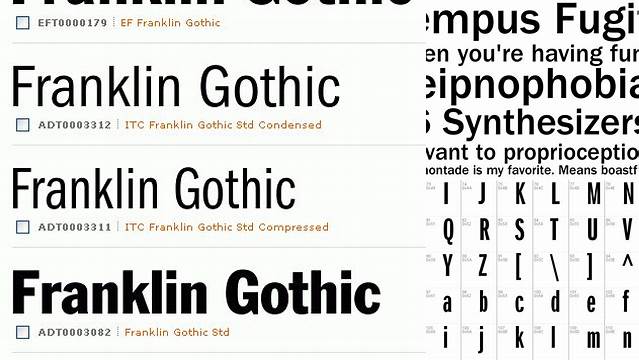
ITC Franklin Gothic STD is a timeless and versatile font family that has been a staple in the design world for decades. Known for its clean lines, excellent readability, and geometric structure, this font is a fantastic choice for a wide range of applications, from branding and advertising to editorial design and web content. In this article, weâll dive deep into the history, characteristics, and uses of ITC Franklin Gothic STD, and also guide you on how to obtain it.
History of ITC Franklin Gothic
The story of Franklin Gothic begins in the early 20th century with the prolific American type designer, Morris Fuller Benton. In 1902, Benton created Franklin Gothic for the American Type Founders (ATF). The font was named in honor of Benjamin Franklin, an American polymath and one of the founding fathers of the United States. Benton's design was a response to the growing demand for sans-serif typefaces that offered clarity and efficiency in an increasingly industrialized world. Franklin Gothic quickly gained popularity due to its straightforward and functional design.
Over the years, the Franklin Gothic family expanded to include a variety of weights and styles, each meticulously crafted to meet the evolving needs of designers and publishers. The ITC Franklin Gothic STD version, released by International Typeface Corporation (ITC), is a refined and updated version of the original, maintaining the essence of Benton's design while optimizing it for modern use. This enduring legacy speaks volumes about the fontâs timeless appeal and adaptability.
Key Characteristics of ITC Franklin Gothic STD
ITC Franklin Gothic STD boasts several distinctive characteristics that make it a favorite among designers:
- Readability: One of the primary reasons for its widespread use is its exceptional readability. The clean, open forms and balanced proportions make it easy to read in both print and digital formats. This is particularly important for body text and long-form content.
- Geometric Structure: The font is characterized by its geometric shapes, which give it a modern and structured appearance. This makes it suitable for designs that require a sense of order and precision.
- Versatility: ITC Franklin Gothic STD comes in a variety of weights, from light to black, offering designers a wide range of options for different design needs. This versatility allows it to be used for headlines, body text, and captions.
- Neutrality: The font has a relatively neutral appearance, which means it doesn't impose a strong personality on the design. This makes it a great choice for projects where the focus is on the content rather than the typeface itself.
- Legibility: Even at small sizes, ITC Franklin Gothic STD remains legible, making it suitable for use in applications where space is limited, such as mobile interfaces and small print materials.
Common Uses of ITC Franklin Gothic STD
Its versatility and clarity mean that ITC Franklin Gothic STD is used across various design disciplines. Here are some common applications:
- Branding: Many companies use ITC Franklin Gothic STD for their logos and branding materials due to its clean and professional appearance. It conveys a sense of reliability and trustworthiness.
- Advertising: The font is often used in advertising campaigns for both print and digital media. Its readability ensures that the message is clear and easy to understand.
- Editorial Design: ITC Franklin Gothic STD is a popular choice for newspapers, magazines, and books. Its readability makes it ideal for long blocks of text.
- Web Design: The font works well on websites and other digital platforms. Its clean lines and legibility make it a great choice for user interfaces and web content.
- Signage: Due to its clear and straightforward design, ITC Franklin Gothic STD is often used for signage and wayfinding systems.
- Corporate Communications: Many corporations use this font for internal and external communications, including reports, presentations, and memos.
ITC Franklin Gothic STD remains a powerful and versatile font family that continues to be relevant in the world of design. Its timeless design, excellent readability, and wide range of weights make it a valuable asset for any designer. Remember to obtain the font through legitimate channels to avoid legal and technical issues, and follow the tips outlined in this article to use it effectively in your projects. Whether you're working on branding, advertising, editorial design, or web content, ITC Franklin Gothic STD is a reliable choice that will help you create professional and visually appealing designs. So go ahead, explore the possibilities with ITC Franklin Gothic STD and elevate your design projects to the next level!